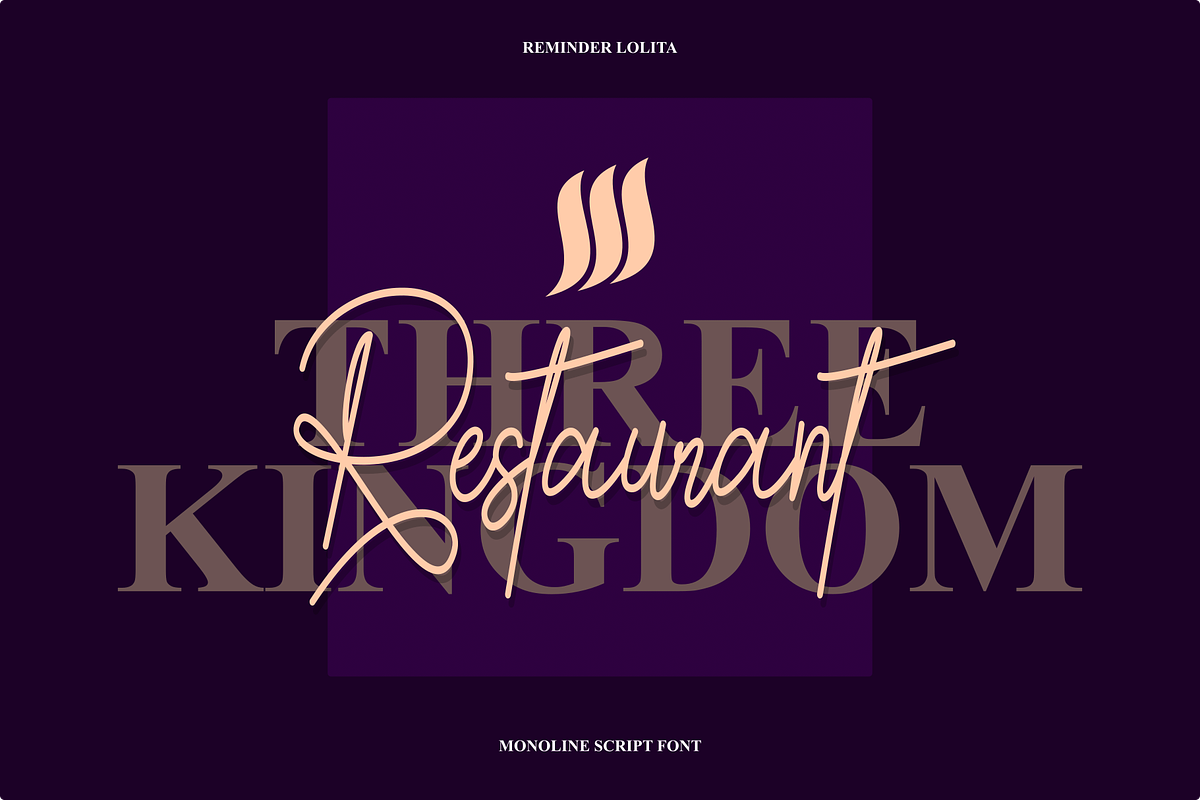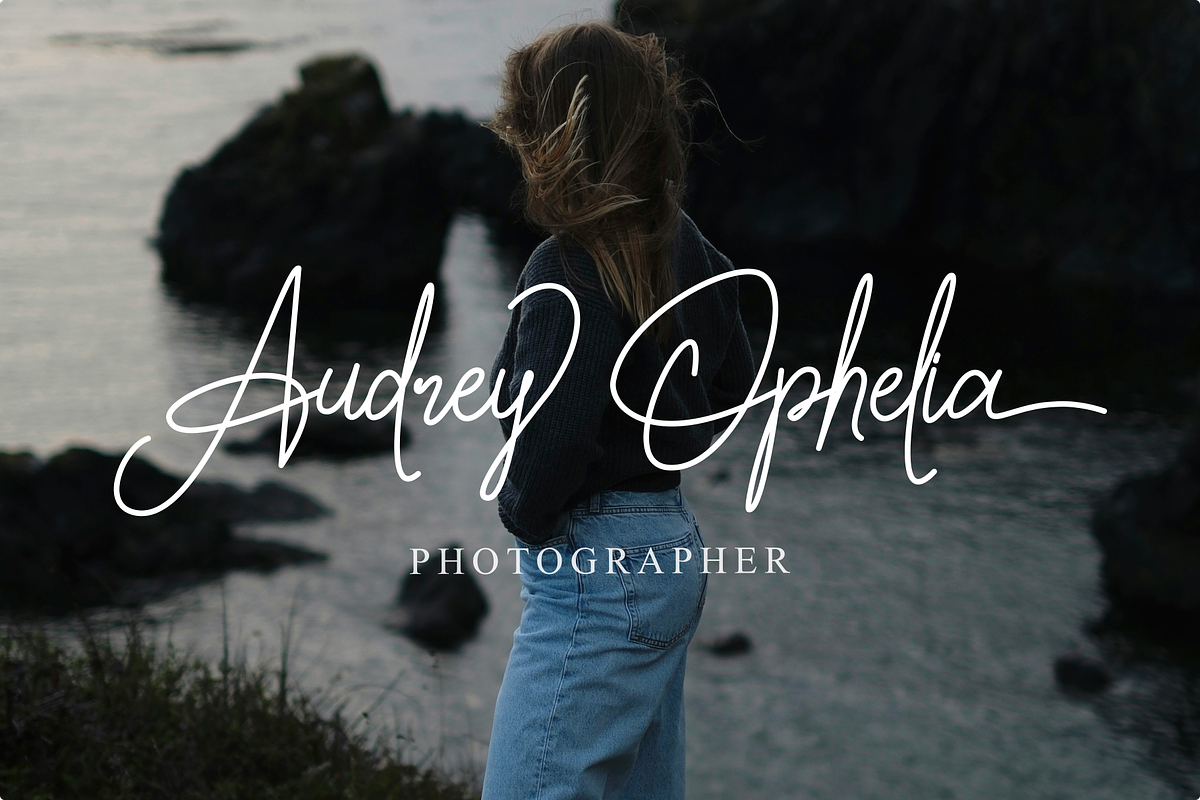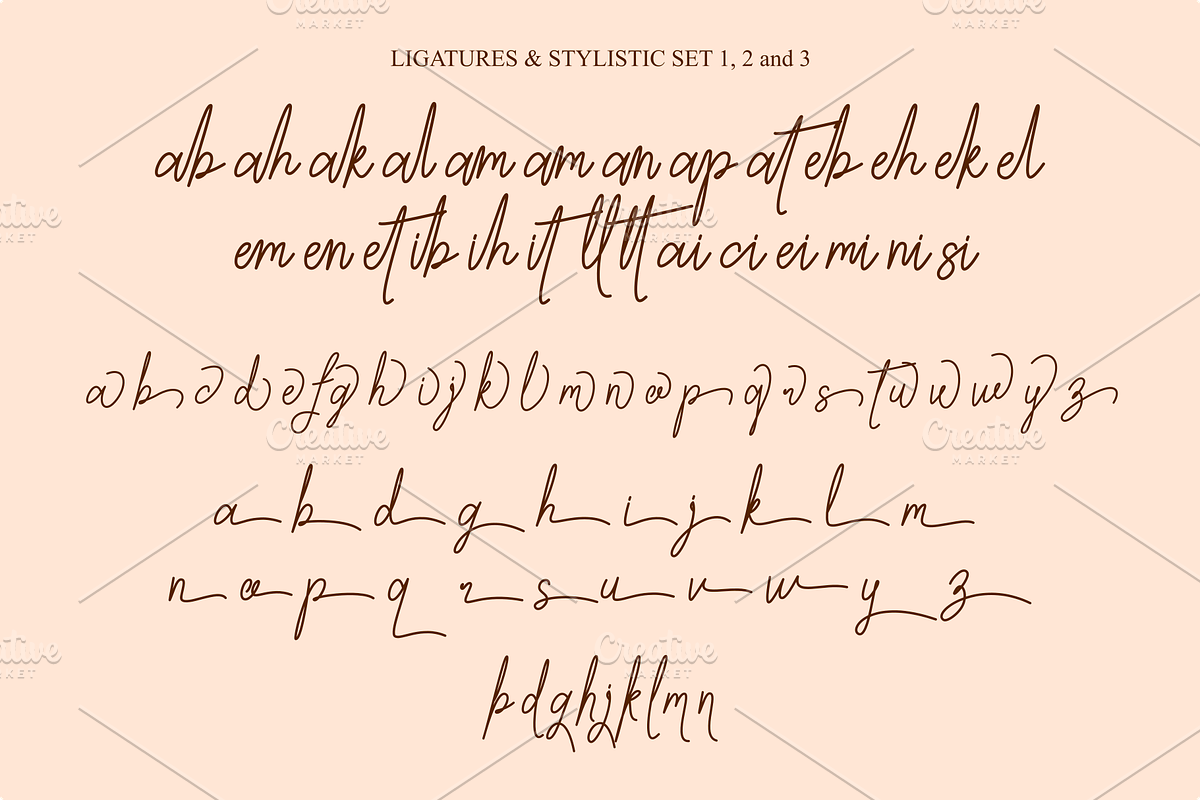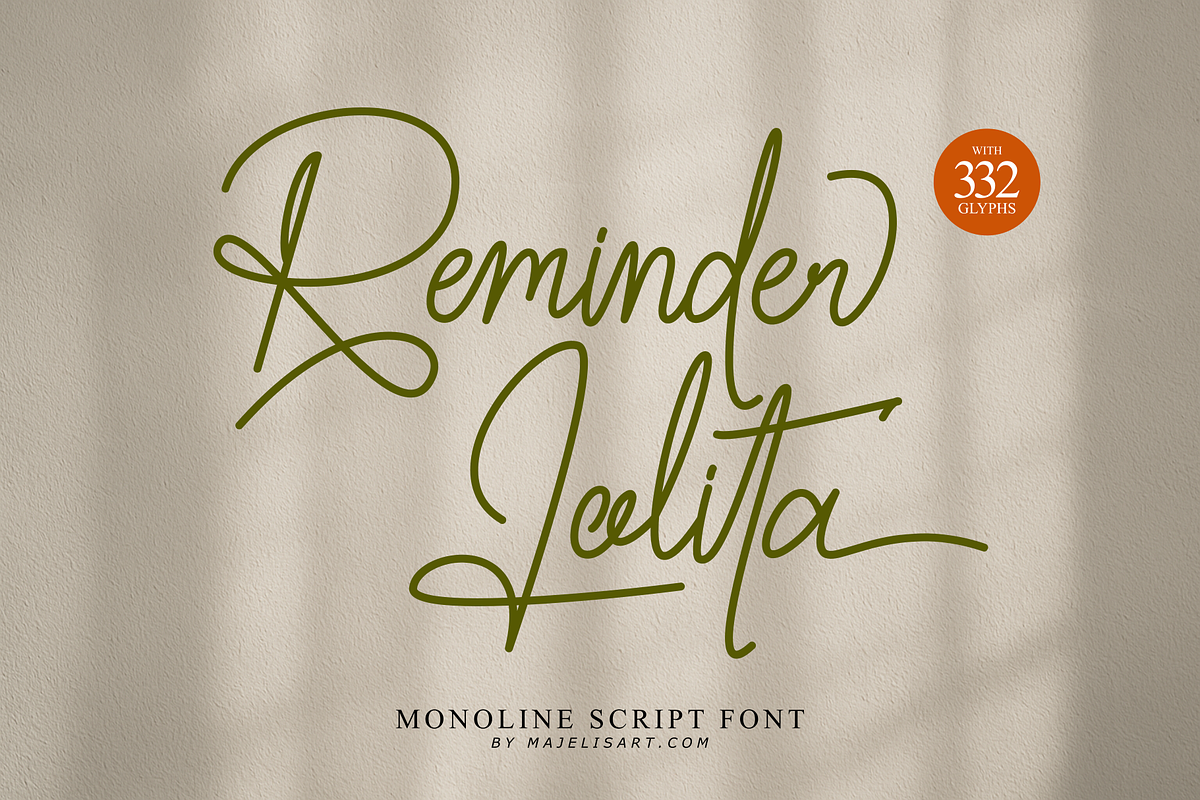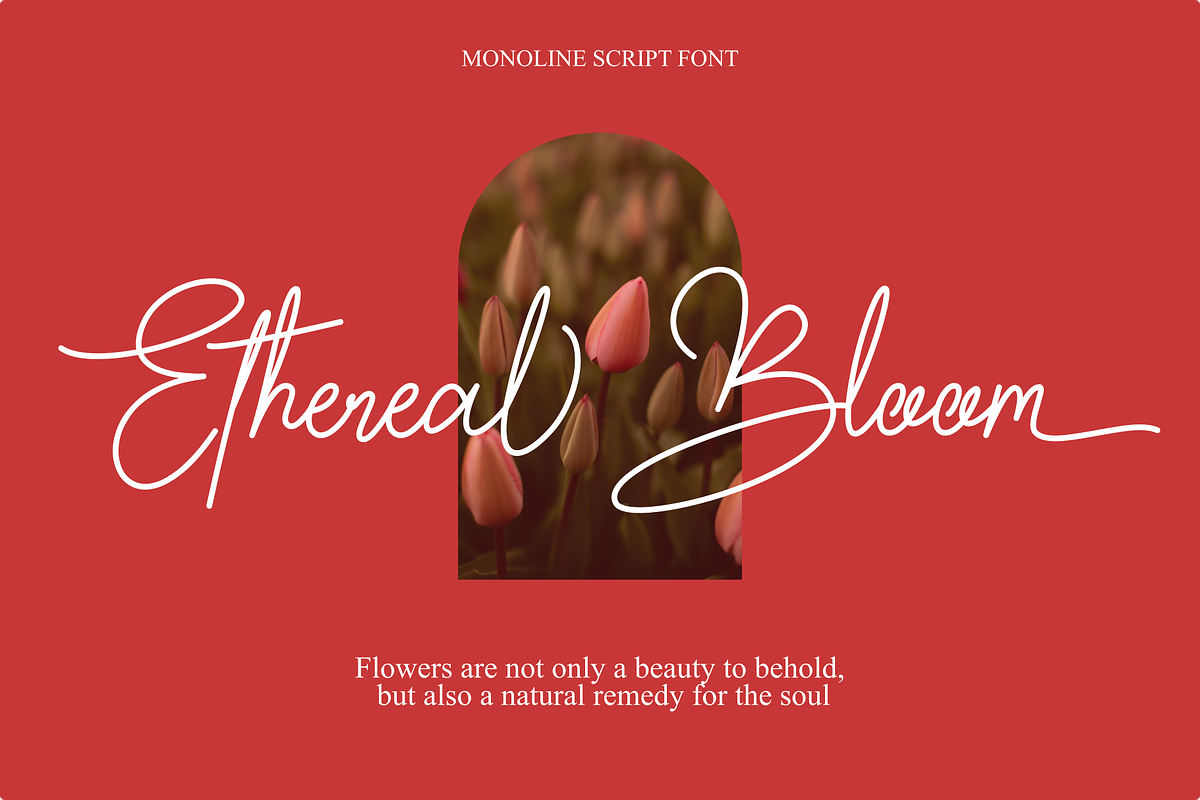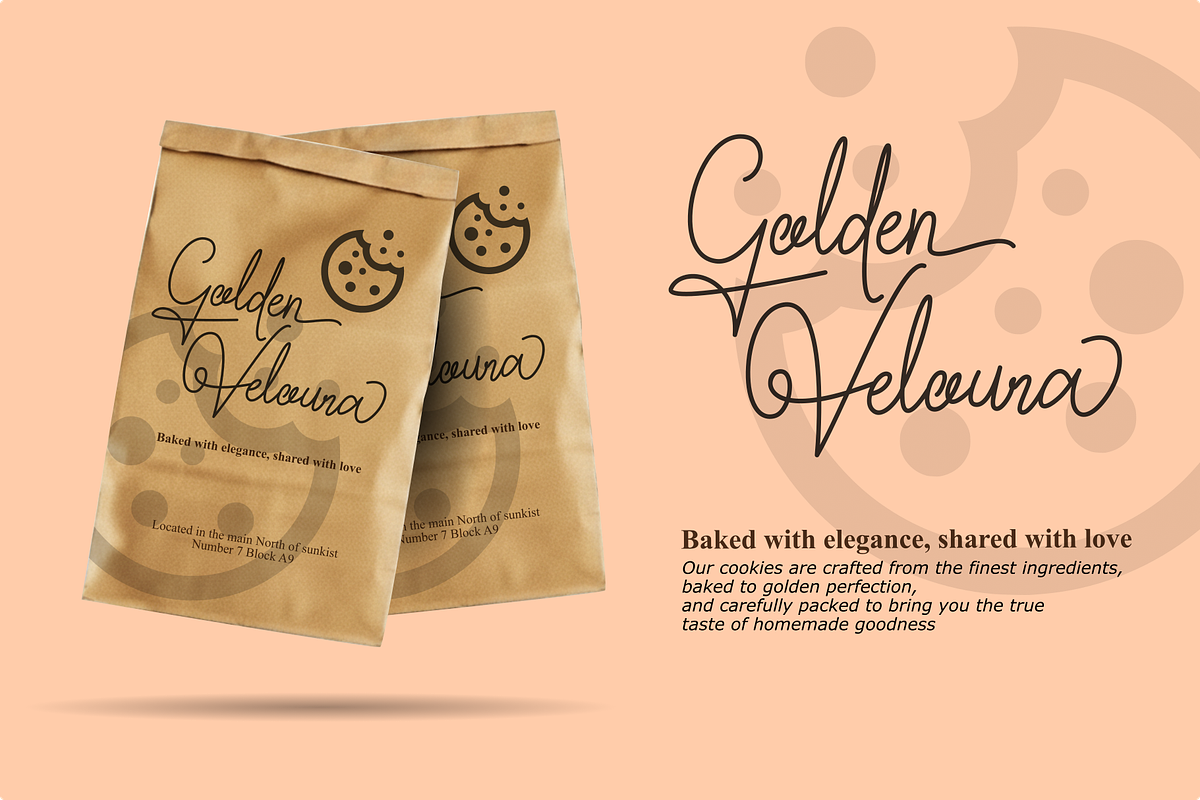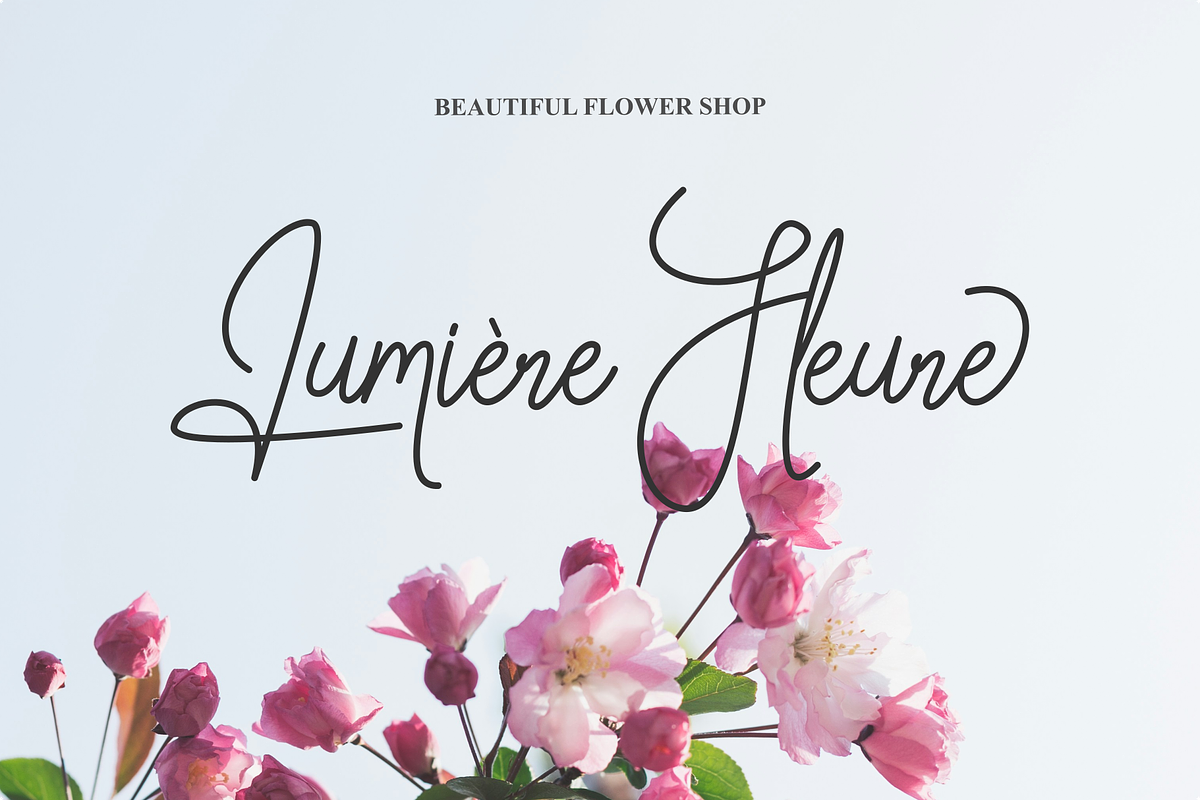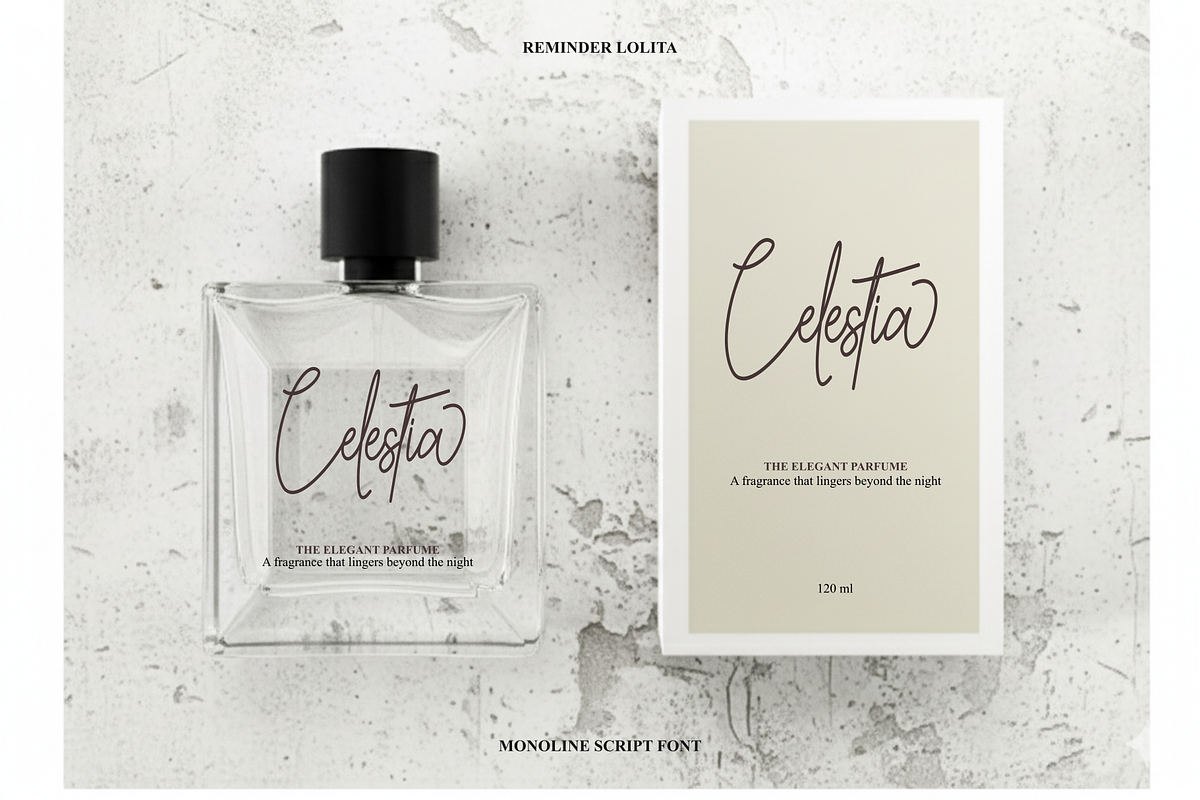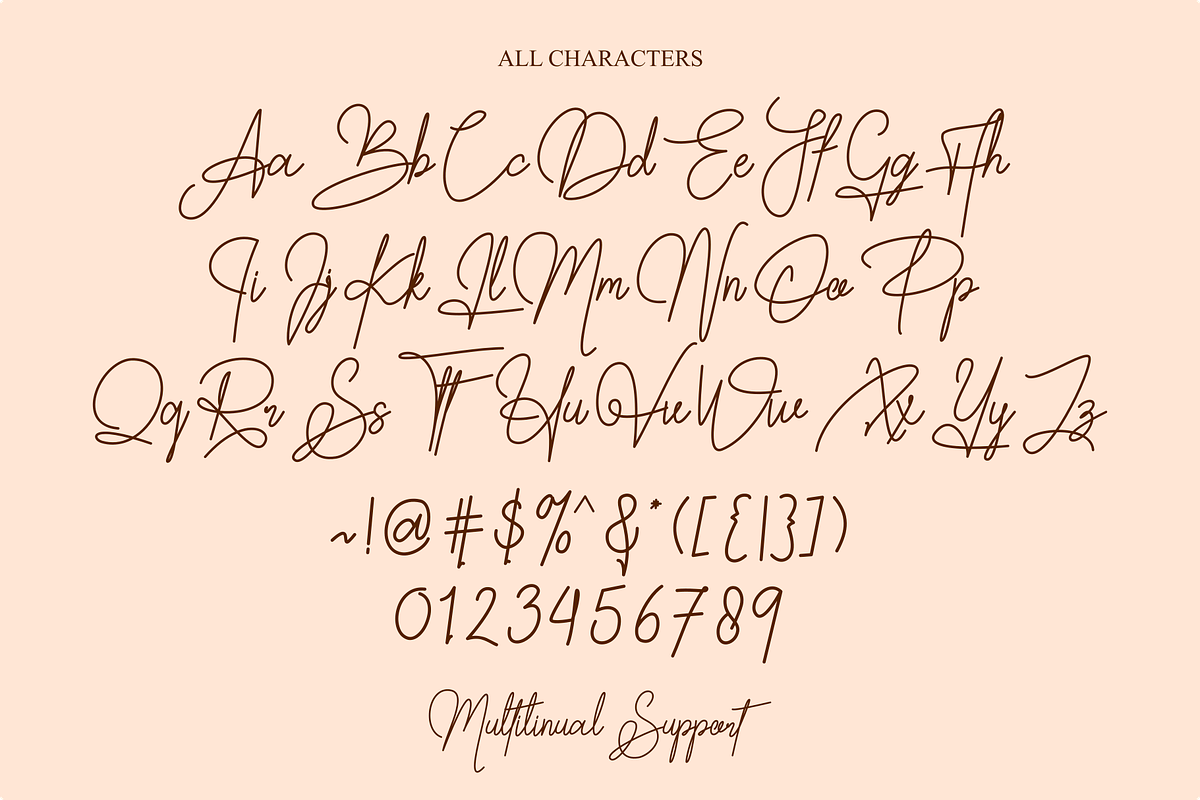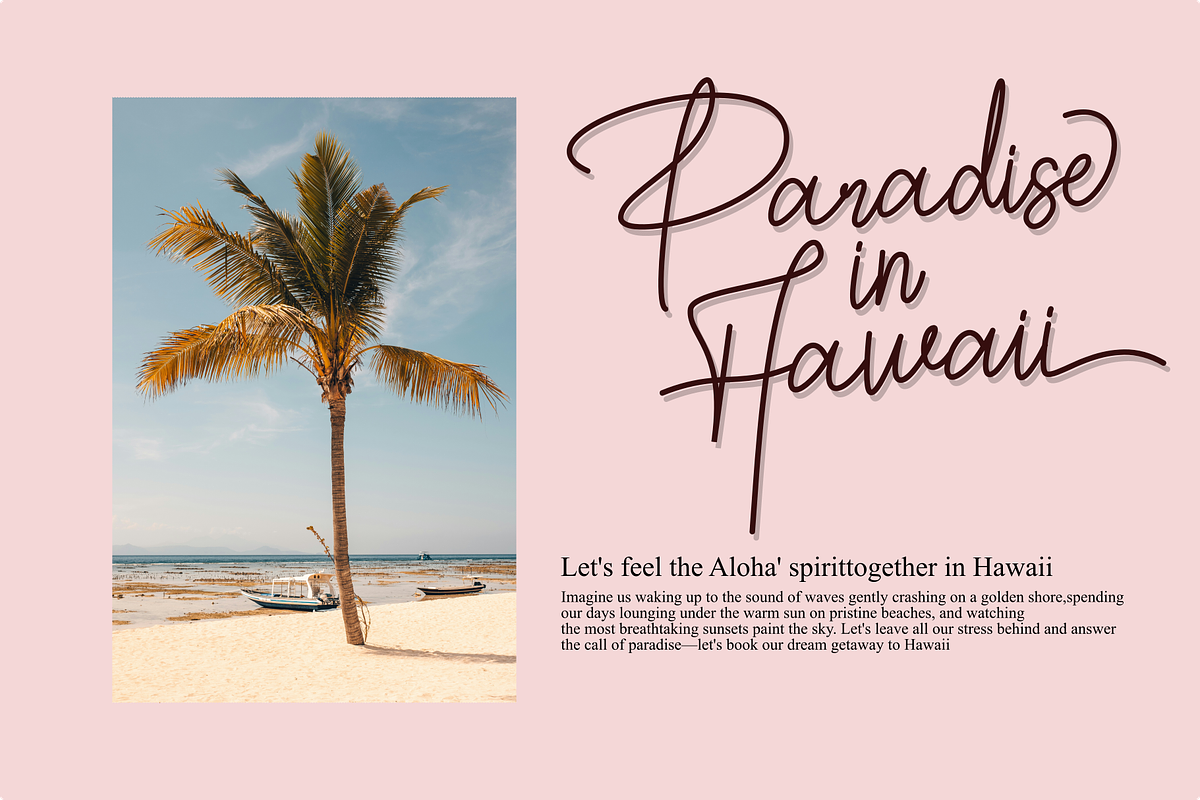
Reminder Lolita
REMINDER LOLITA – Elegant Monoline Script Font
Reminder Lolita is a beautiful monoline script font that combines simplicity with elegance. Designed with smooth, consistent strokes and graceful curves, this font creates a clean yet expressive handwritten style that feels both modern and timeless.
With its natural flow and stylish swashes, Reminder Lolita brings a personal and sophisticated touch to any design.
The carefully crafted letterforms ensure readability while maintaining a charming and artistic appearance.
Monoline Script Style
332 Glyphs Included
Smooth & Consistent Stroke
Perfect for: Reminder Lolita is highly versatile and ideal for a wide variety of creative projects, such as:
Logo design & branding
Wedding invitations & stationery
Social media posts & content
Packaging design (cosmetics, handmade products, etc.)
Quotes & typography artwork
Signature logos
Greeting cards
Fashion & beauty branding
Website headers & blog design
Whether you're creating a romantic invitation or a stylish brand identity, Reminder Lolita delivers a soft, elegant, and professional look that enhances your design effortlessly.